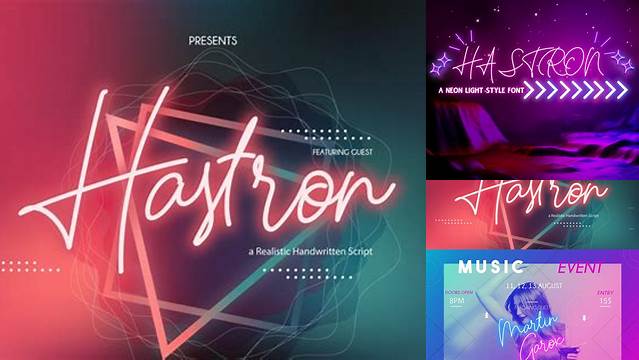
Unveiling the Brilliance of Hastron Neon Monoline Script Font
Hey, font fanatics! Let's dive into the dazzling world of the Hastron Neon Monoline Script font. If you're on the hunt for that perfect touch of retro-chic, modern flair, or just a seriously stylish script that screams personality, Hastron might just be your new best friend. This font isn't just another pretty typeface; it's a carefully crafted piece of digital art designed to make your designs pop. The monoline aspect means it has a consistent stroke width, giving it a clean, smooth, and almost effortlessly elegant feel, while the neon vibe injects a playful, retro, and attention-grabbing energy. Imagine 80s arcade games, vibrant cityscapes at night, or groovy album covers – that's the kind of aesthetic Hastron brings to the table. But it's not just about nostalgia; its clean lines and readable script make it surprisingly versatile for a wide range of modern applications, from branding to social media graphics. We're going to explore why this font is a gem and, most importantly, how you can snag it for free. Stick around, guys, because this is the download guide you've been waiting for to elevate your design game!
Exploring the Unique Characteristics of Hastron Neon Monoline Script
What makes the Hastron Neon Monoline Script font stand out in a sea of digital typefaces? It's all in the details, my friends. The 'monoline' characteristic is key here. Unlike fonts that vary in thickness within a single stroke, Hastron maintains a uniform width. This consistency lends a sense of sophistication and clarity, ensuring readability even at smaller sizes. It's this very precision that makes it feel both contemporary and timeless. Then there's the 'neon' element. This isn't literal neon lighting, of course, but the font evokes that vibrant, glowing effect through its curves, a certain playful boldness, and a subtle suggestion of light emanating from its strokes. It has this fantastic ability to feel both retro and cutting-edge simultaneously. Think of those classic neon signs that beckon you into a diner or a cool boutique – Hastron captures that inviting, almost magical glow. The script style itself is fluid and expressive, with charming ligatures and alternates that add a human touch. It feels handwritten but with a polished, professional finish. The balance between the smooth, consistent lines and the energetic, neon-inspired personality is what truly sets Hastron apart. It’s designed to be eye-catching without being overwhelming, providing a unique personality that can transform a simple text into a compelling visual statement. We'll be unpacking how to leverage these characteristics in your next project shortly!
Why Choose Hastron Neon Monoline Script for Your Designs?
So, why should the Hastron Neon Monoline Script font be your go-to choice for your next creative endeavor? Well, for starters, it’s incredibly versatile, despite its bold personality. Need to create a logo that pops? Hastron can do that. Designing a poster for a music event? It’s a perfect fit. Working on social media graphics that need to grab attention instantly? Yup, Hastron’s got your back. The free download aspect is obviously a massive draw, but beyond the cost, it’s the impact this font can have. It injects personality, warmth, and a touch of retro cool into any design. The monoline script style ensures it remains legible and elegant, preventing that common pitfall of script fonts becoming too hard to read. Plus, the neon influence gives it that extra edge, making your text feel dynamic and alive. Imagine pairing it with a clean sans-serif for headings, or letting it shine on its own for a headline. It works wonders for branding projects, especially for businesses aiming for a fun, creative, or nostalgic vibe. It can elevate product packaging, website headers, invitations, and so much more. It's the kind of font that doesn't just sit there; it performs. It tells a story and sets a mood, making your audience feel something. If you're looking to make a statement and add a unique, memorable flair to your work, Hastron is definitely worth considering.
Utilizing Hastron Neon Monoline Script in Design Projects
Now that you've got the Hastron Neon Monoline Script font installed, the real fun begins: using it! This font is a powerhouse for adding personality and a retro-modern vibe to pretty much any project. Let’s talk about how you can make it shine. Branding and Logos: Hastron is fantastic for logos, especially for businesses targeting a younger audience or those wanting a fun, approachable feel. Its neon glow and script style can make a brand memorable. Think cafes, boutiques, creative agencies, or event planners. Social Media Graphics: Need to create eye-catching Instagram posts or Facebook banners? Hastron is your guy. Use it for quotes, announcements, or calls to action. Its inherent boldness will ensure your posts get noticed in a crowded feed. Invitations and Greeting Cards: For weddings, birthdays, or parties with a retro or vibrant theme, Hastron adds a touch of playful elegance. It works exceptionally well for invitations that set a specific, exciting tone. Website Design: Use Hastron for headlines, special call-out text, or even as a secondary font for certain sections of your website to add character. Just ensure it complements your primary font and maintains readability for longer text blocks. Merchandise and Packaging: Printing this font on t-shirts, mugs, or product packaging can give your items a unique, stylish edge. Its neon-inspired look is particularly effective for apparel and accessories. Key Tip: Because Hastron has such a distinct personality, it often works best as a display font – meaning for headlines, titles, and short bursts of text. Pair it with a simpler, cleaner font (like a sans-serif or a basic serif) for body text to ensure your overall design remains balanced and readable. Experiment with color! Since it evokes neon, try using bright, vibrant colors or contrasting dark backgrounds to really make it glow.
Font Pairing Ideas with Hastron Neon Monoline Script
Choosing the right accompanying fonts is crucial when working with a distinctive typeface like the Hastron Neon Monoline Script font. You want fonts that complement Hastron's unique personality without competing with it. The goal is balance and readability. Here are some killer pairing ideas, guys:
Final Thoughts on Hastron Neon Monoline Script
So, there you have it, font lovers! The Hastron Neon Monoline Script font is more than just a free download; it's a versatile tool packed with personality. Whether you're aiming for a blast from the past with its rad retro vibes or need a modern script with a clean, stylish edge, Hastron delivers. Its monoline consistency ensures readability, while the neon suggestion gives it that unforgettable punch. We've covered how to find that elusive free download, get it installed, and start using it effectively in your designs – from branding and social media to invitations and more. Remember to play with color, explore those alternates and ligatures, and always pair it thoughtfully with supporting fonts. And don't forget to check those licensing terms, guys! Hastron is a fantastic addition to any designer's toolkit, offering a unique blend of nostalgia and contemporary style. So go ahead, download it, experiment with it, and let its vibrant energy bring your next creative project to life. Happy designing!